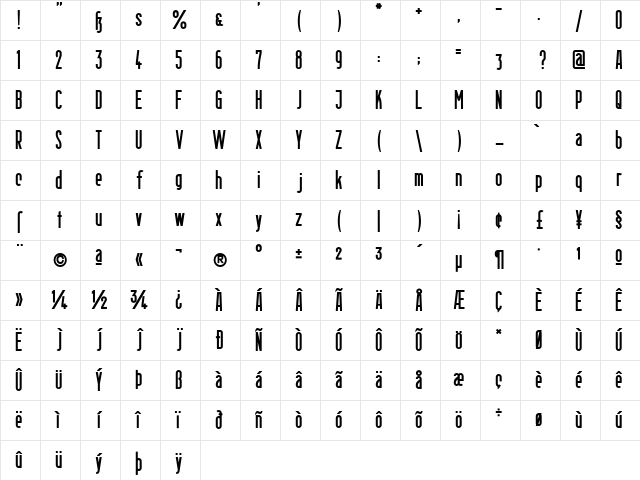
Complete Berlin Email Bold Regular glyph index. Displaying only characters natively supported by Berlin Email Bold Regular font.
Berlin Email Bold is a composed and adaptable typeface that performs quietly and consistently across a wide range of design contexts. Its bold stroke weight gives it real presence on the page.